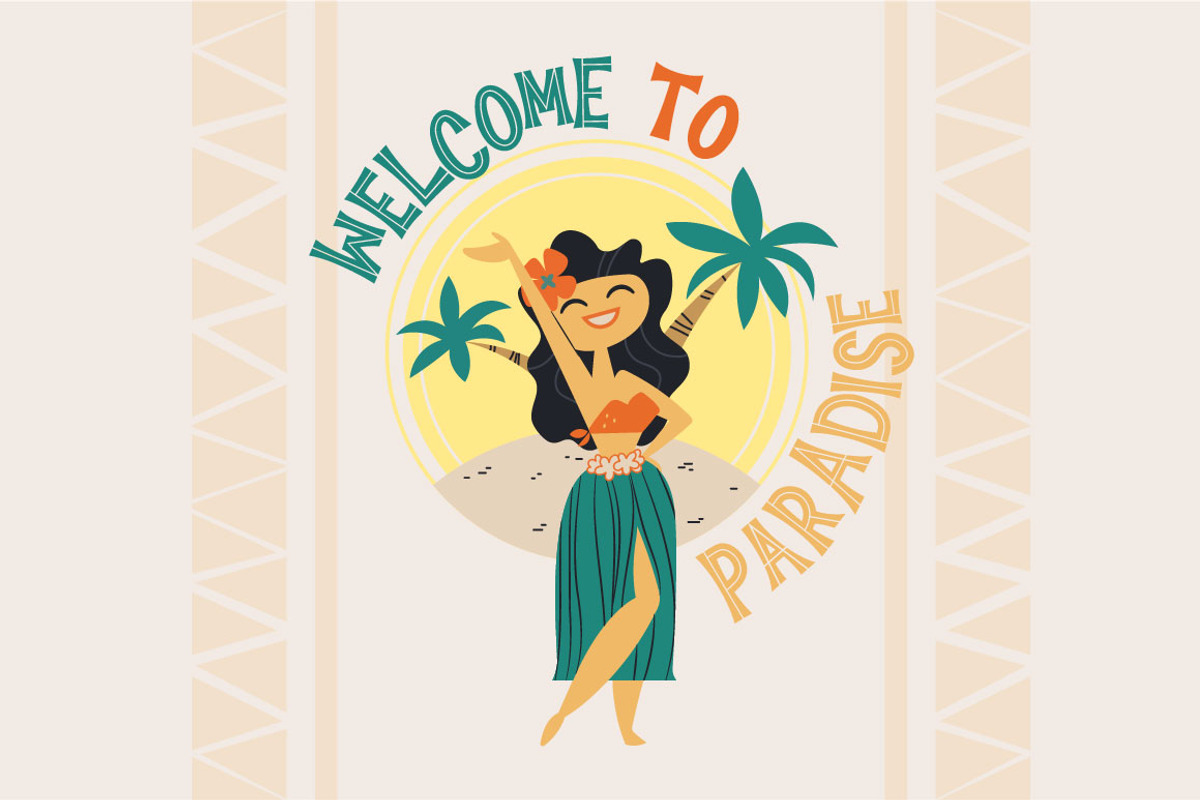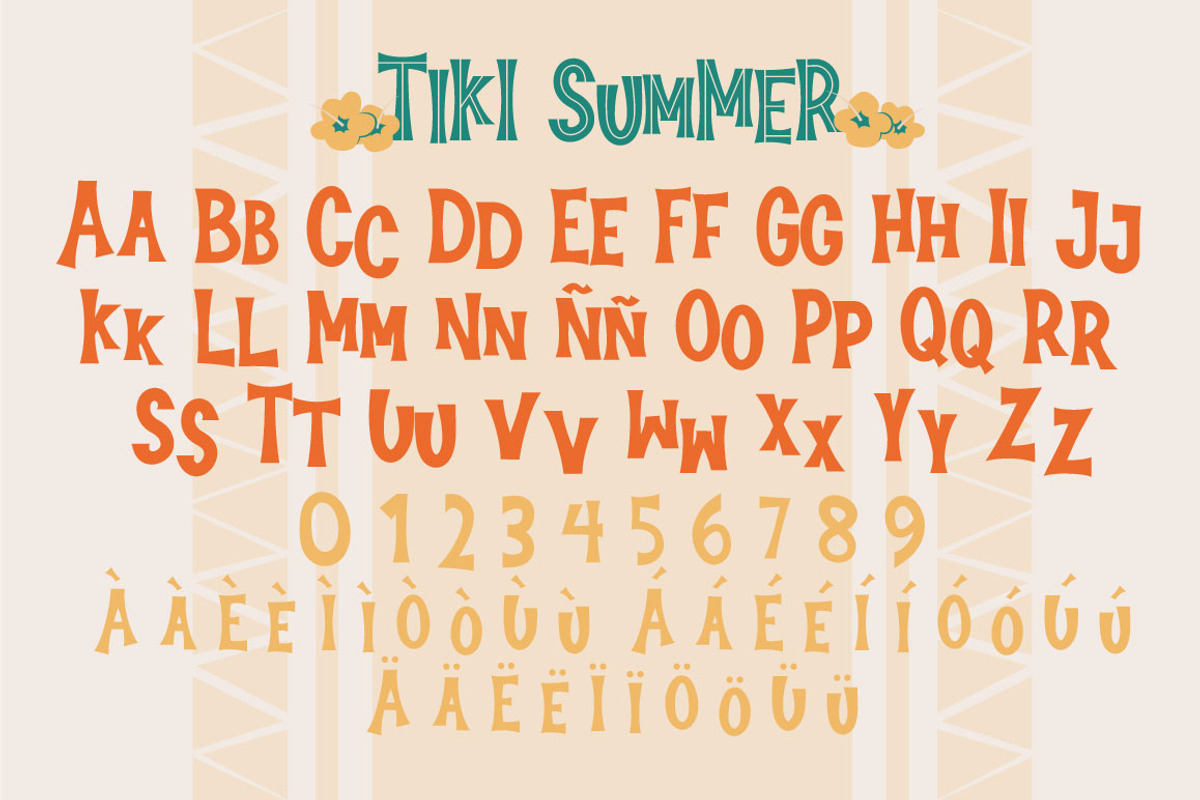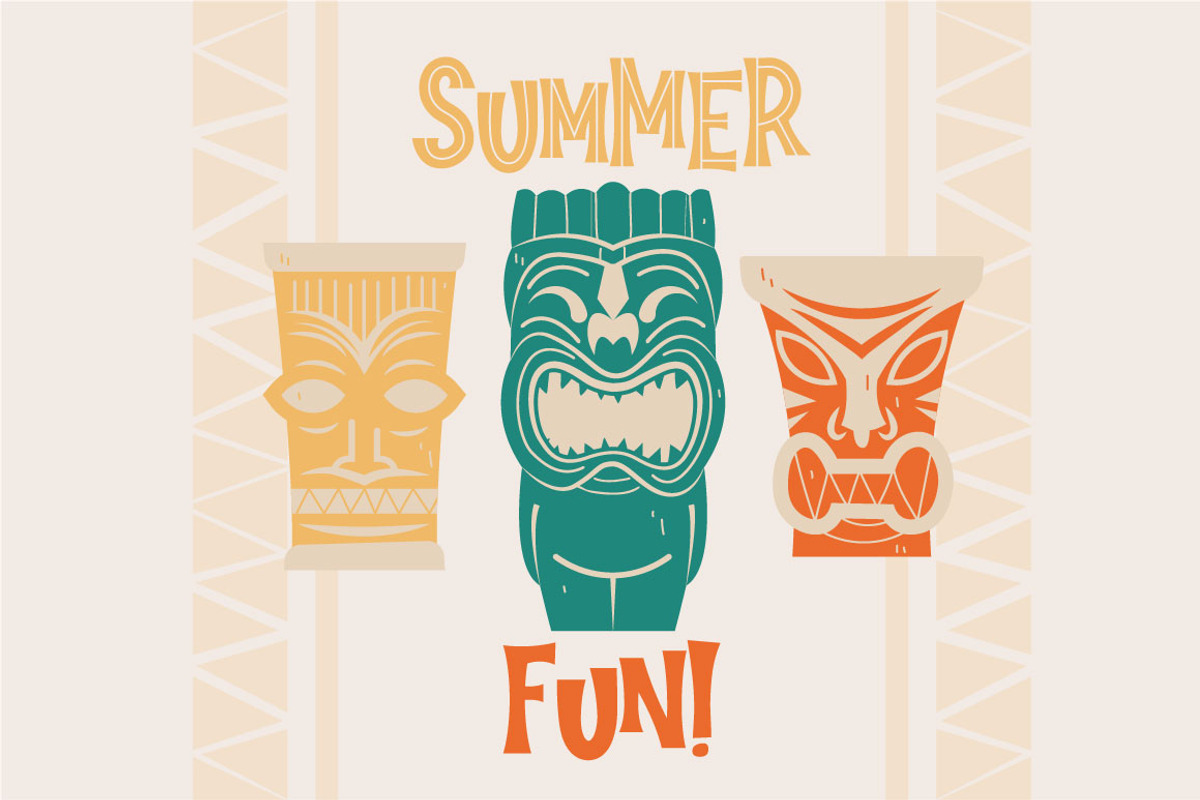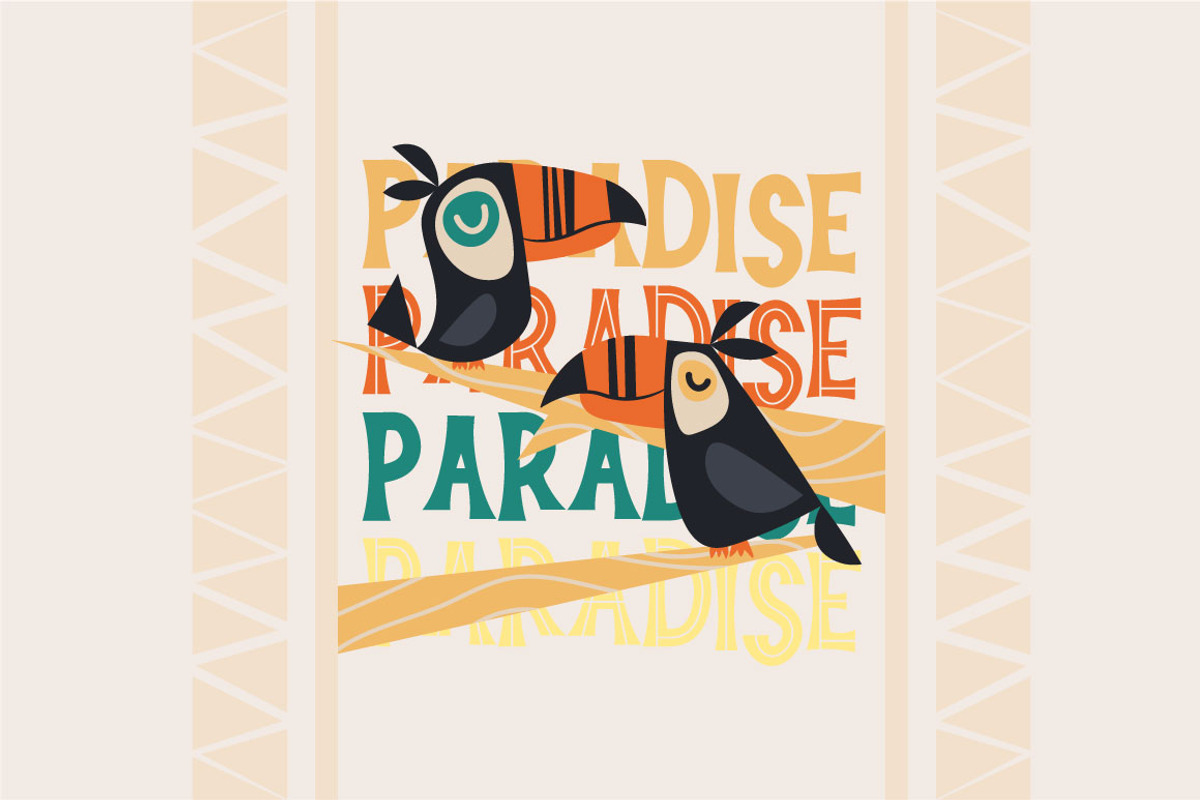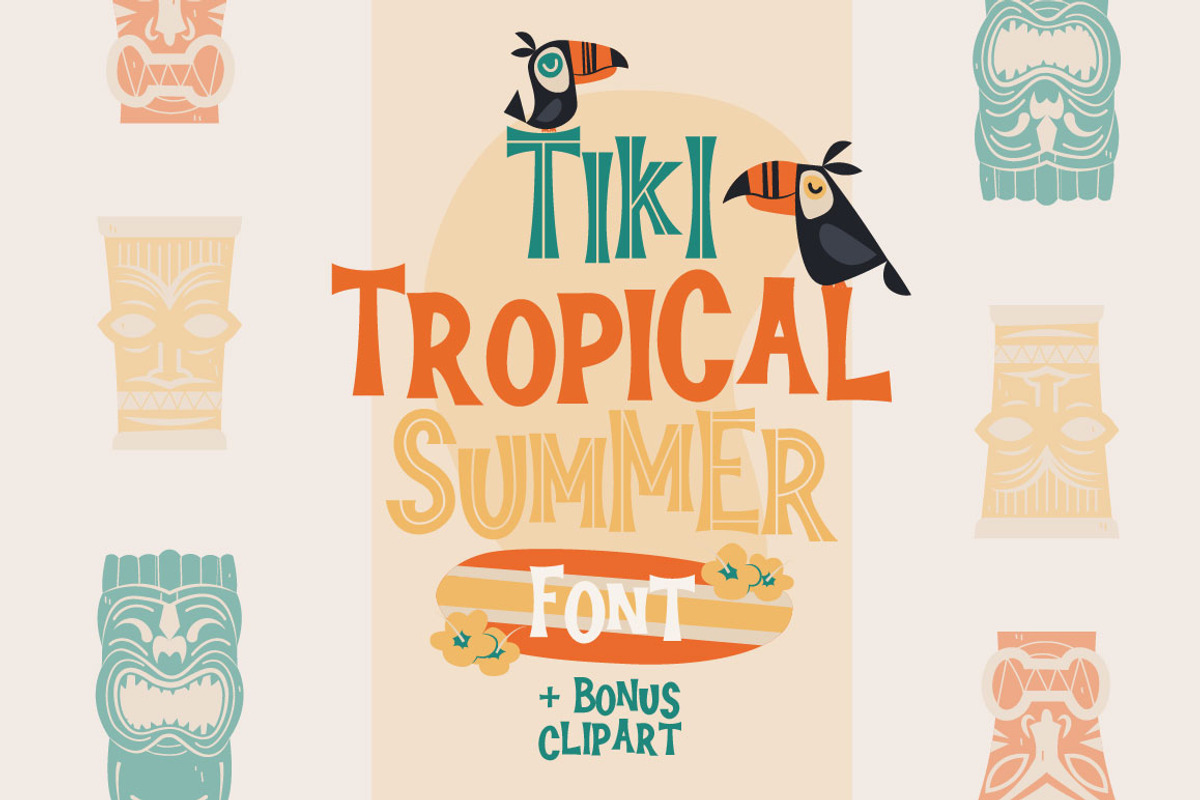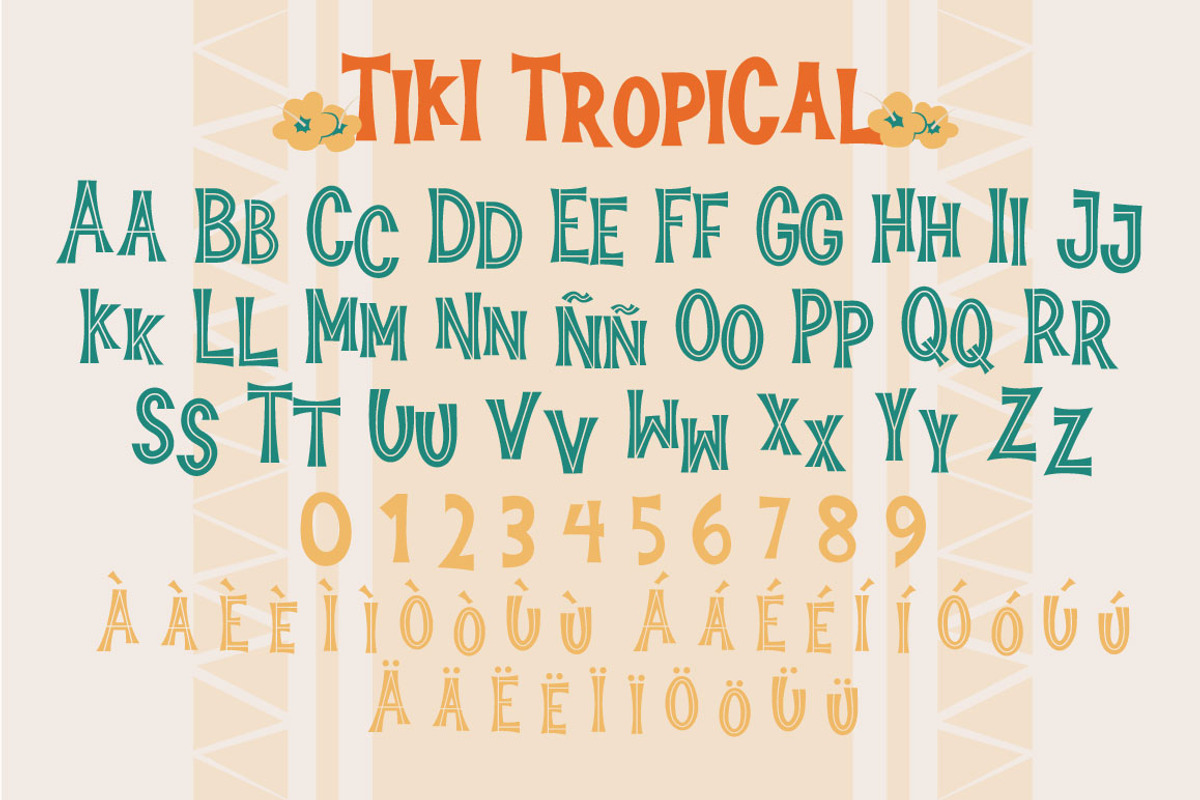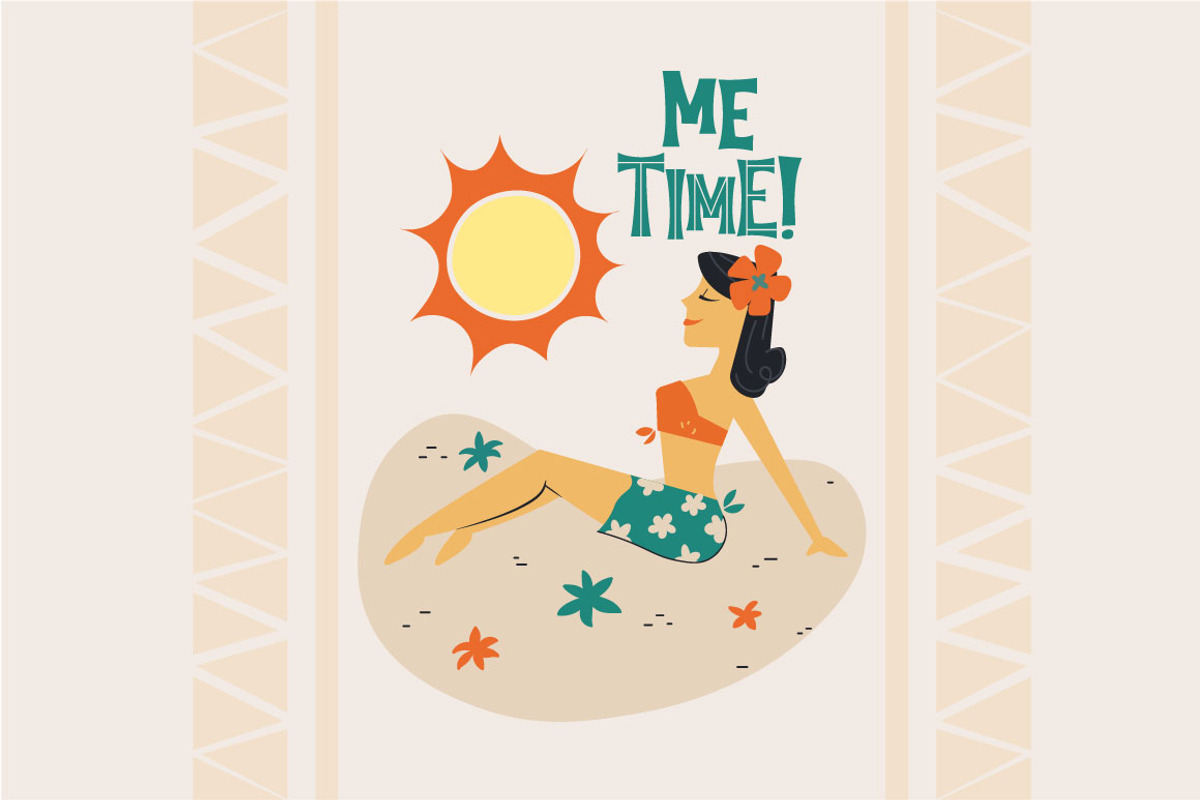
Tiki Tropical Summer Font
Summer is upon us, and with it I present to you Tiki Tropical Summer Mid Century Retro font duo with 5 FREE bonus illustrations, so you can bring all of your retro summer creations to live with this awesome set.
Tiki Tropical - Font with lines on the middle
Tiki Summer - Black font